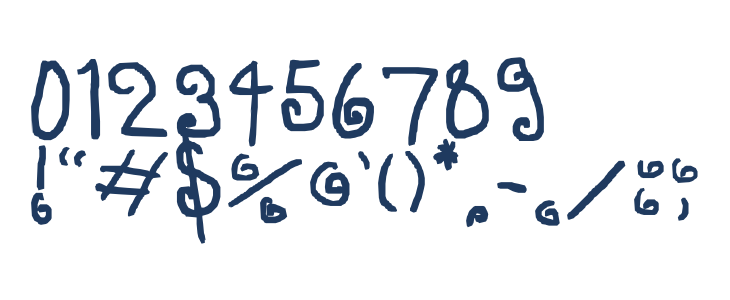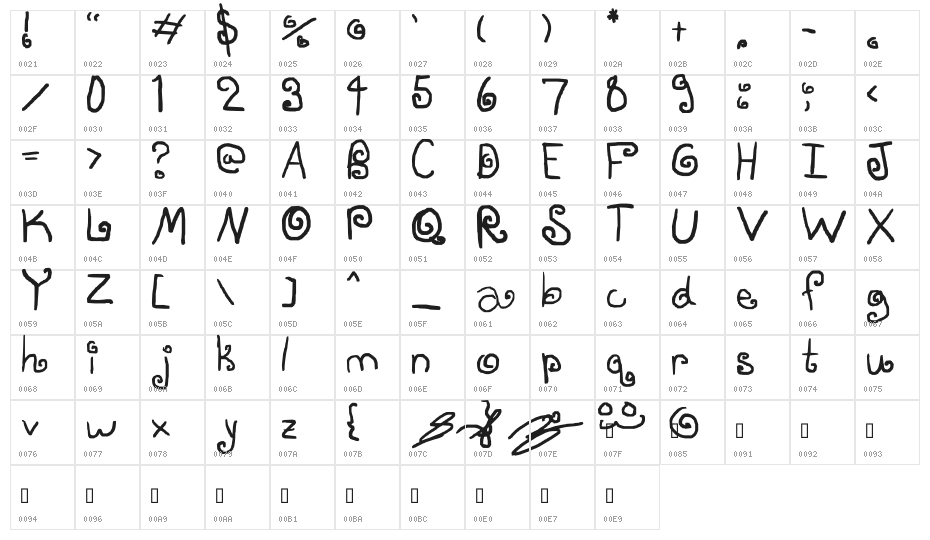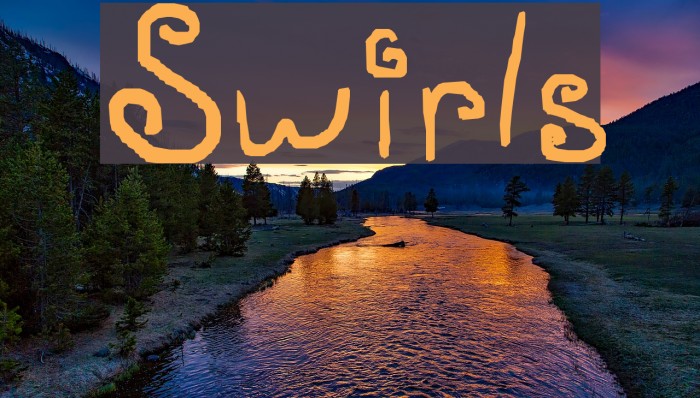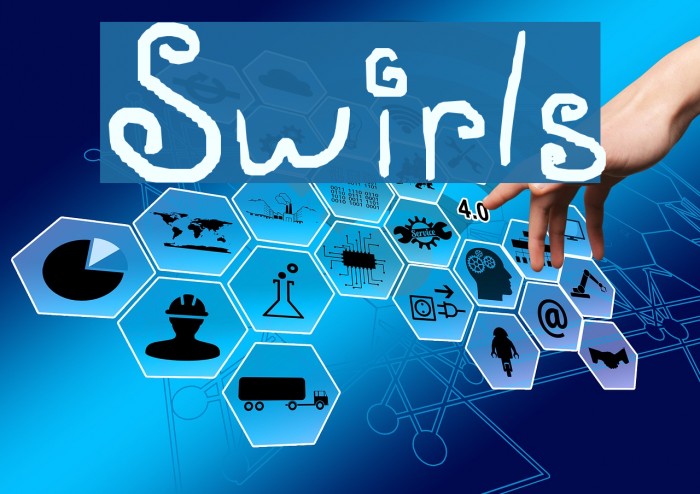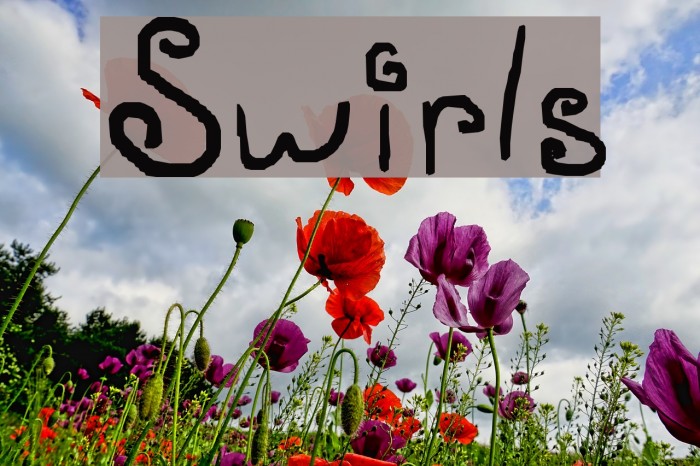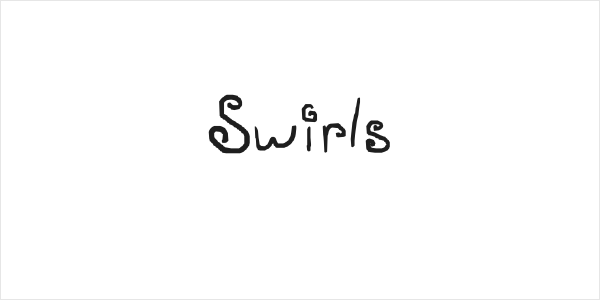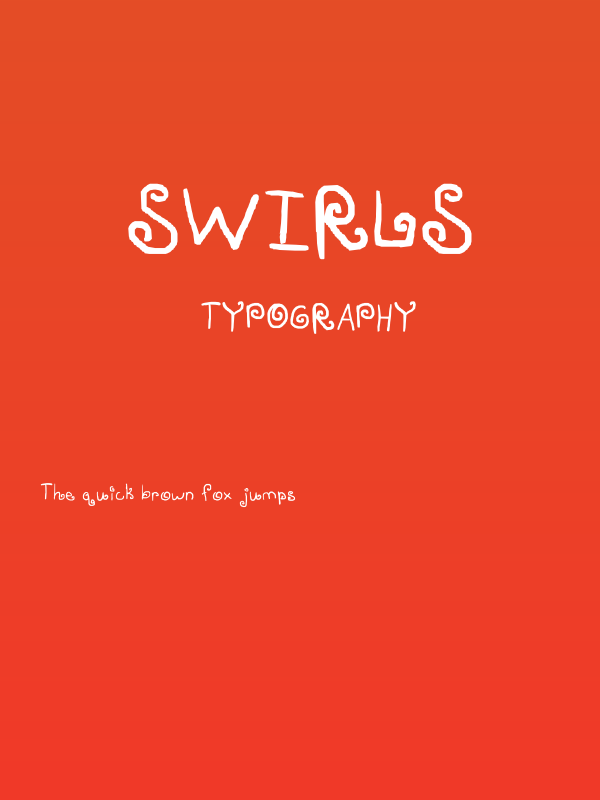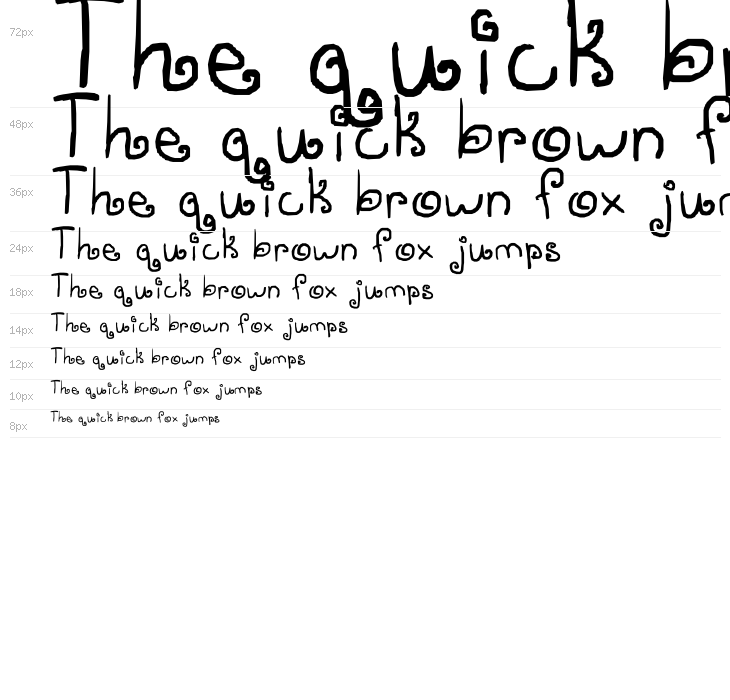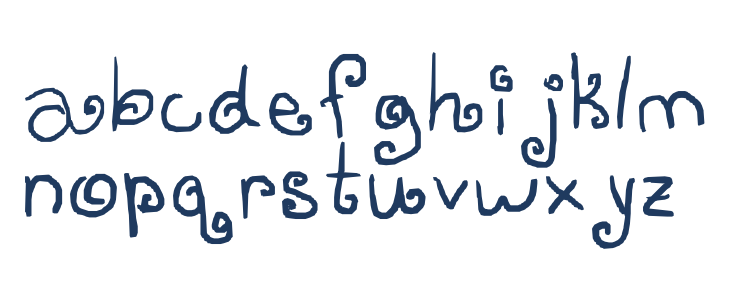
Swirls Font
Swirls Description
This playful and whimsical font features a unique, hand-drawn style with swirling elements incorporated into many of the characters. The uppercase letters are bold and expressive, with some characters like 'G' and 'M' showcasing prominent spiral designs. The lowercase letters maintain a consistent style, with a slightly more relaxed and casual appearance. The numerals are distinct and easily readable, while the special characters continue the theme with quirky and artistic flair. Overall, this font exudes a sense of fun and creativity, making it ideal for projects that require a touch of personality and charm.
Overall StylePlayful, Artistic
Proposed ProjectsIdeal for children's books, creative posters, playful branding, and artistic invitations.